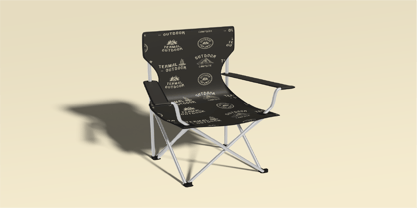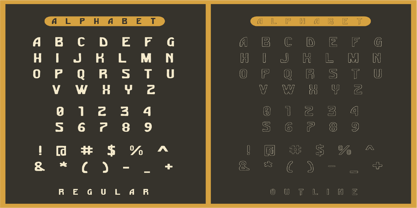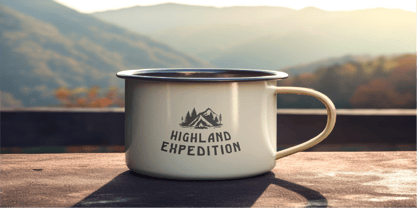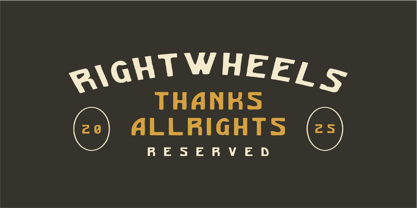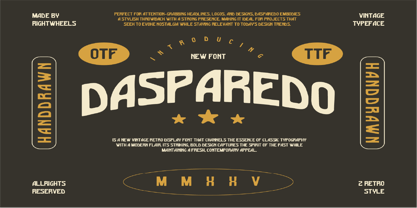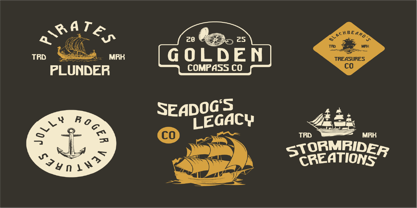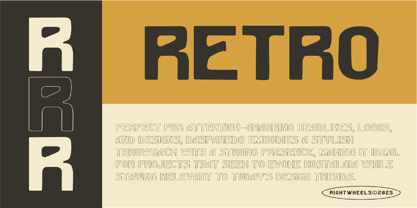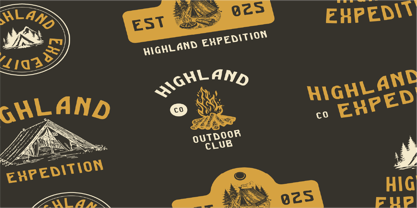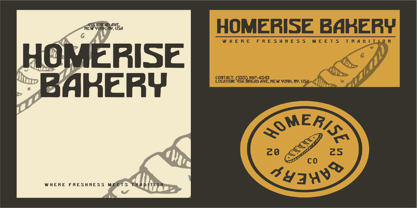
Dasparedo
Dasparedo is a new vintage retro display font that channels the essence of classic typography with a modern flair. Its striking, bold design captures the spirit of the past while maintaining a fresh, contemporary appeal. Perfect for attention-grabbing headlines, logos, and designs, DASPAREDO embodies a stylish throwback with a strong presence, making it ideal for projects that seek to evoke nostalgia while staying relevant to today’s design trends.